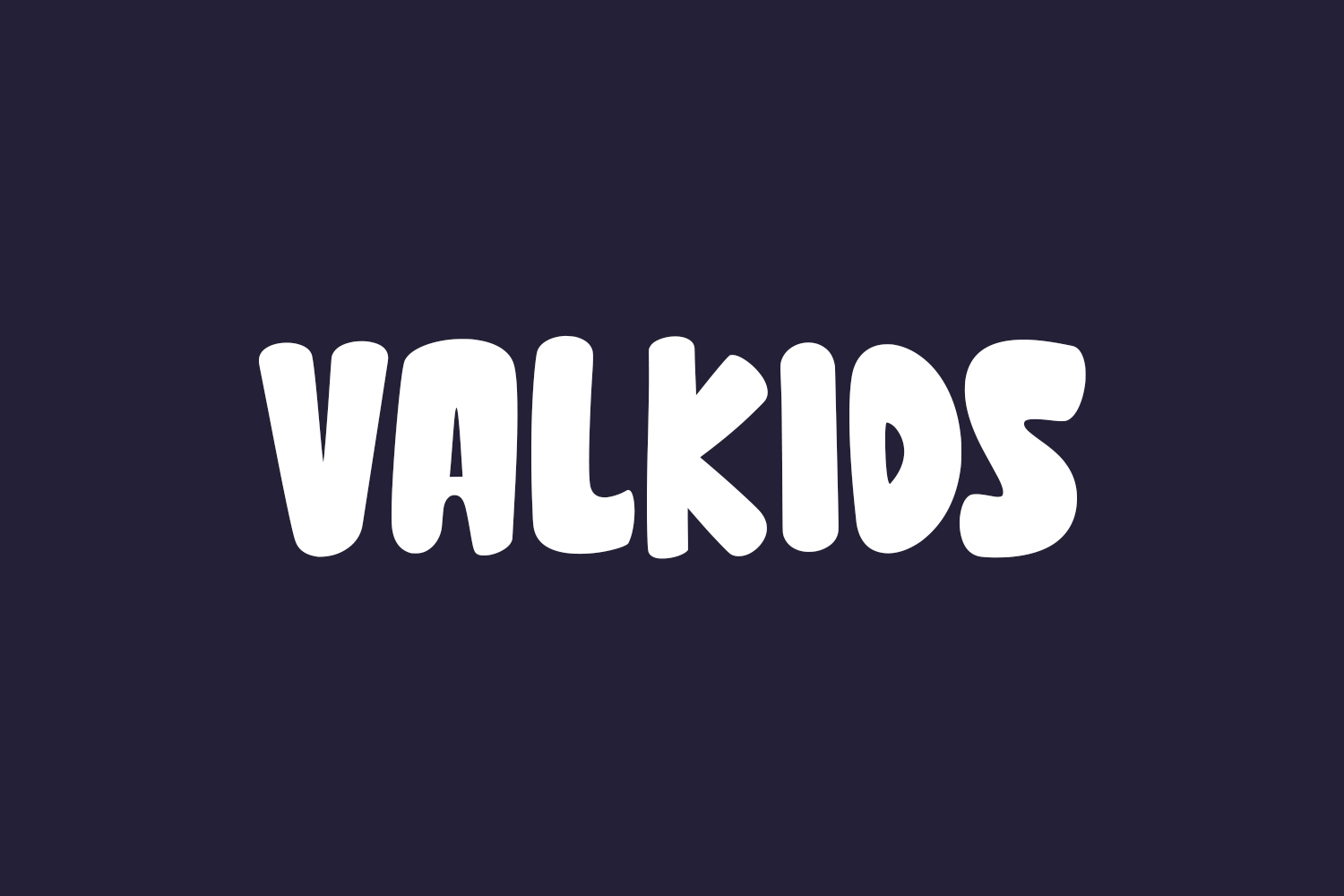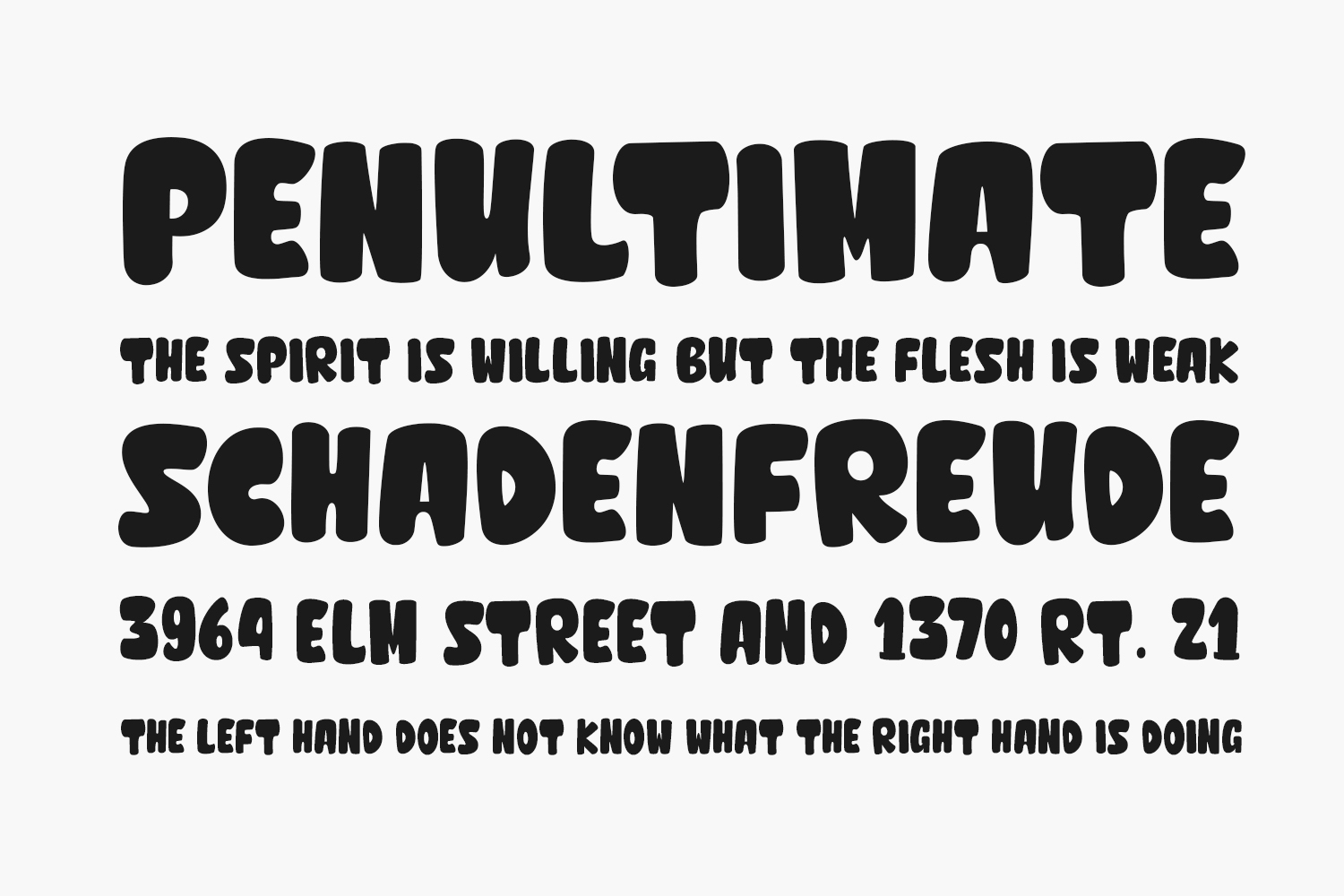
Valkids Free Font is an engaging display font, exudes a delightful and playful aesthetic. With its friendly vibe, this font effortlessly elevates any creative concept into a masterpiece. Download the font for free if you need it for personal use or purchase the full version for commercial use.
Designed by Letterara